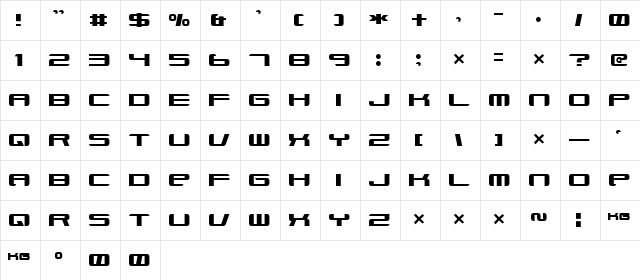
Complete Xenotron Broadstroke Normal glyph index. Displaying only characters natively supported by Xenotron Broadstroke Normal font.
Xenotron Broadstroke is a composed and adaptable typeface that performs quietly and consistently across a wide range of design contexts.
Pro Tip: Use Xenotron Broadstroke in both headline and body roles to test its range before committing to a single application.